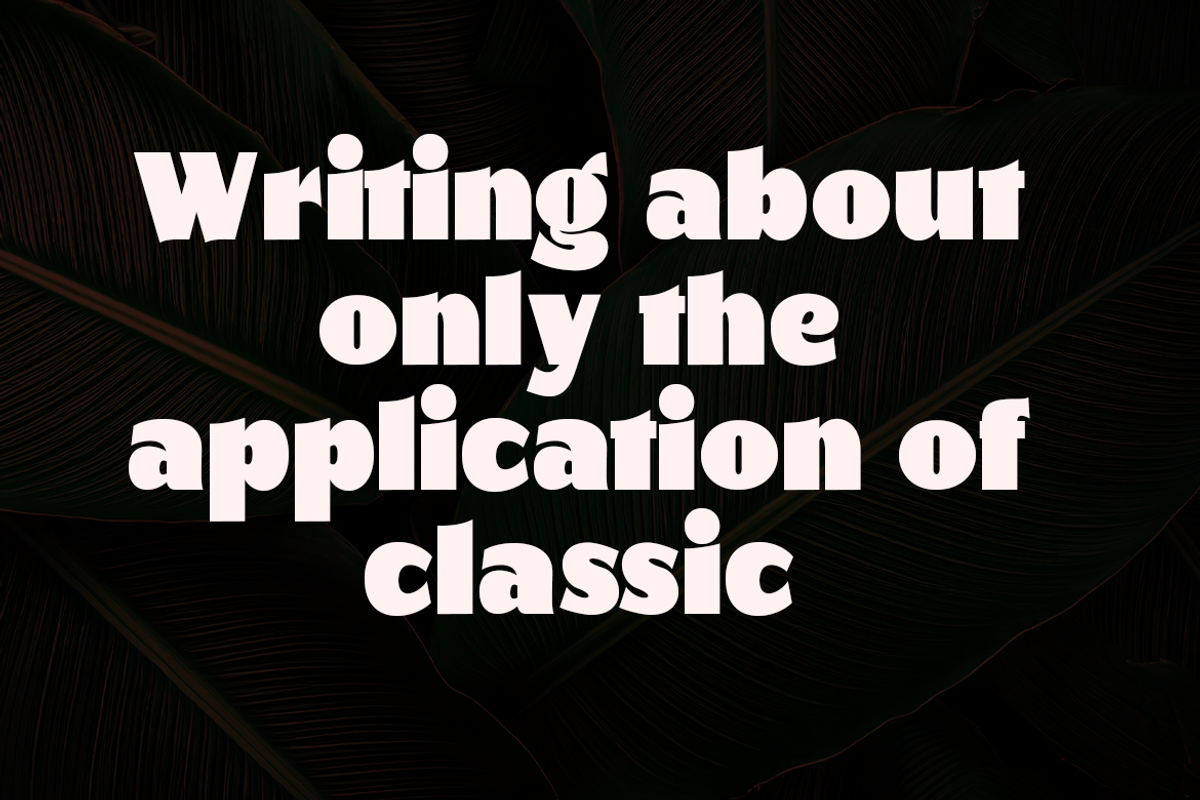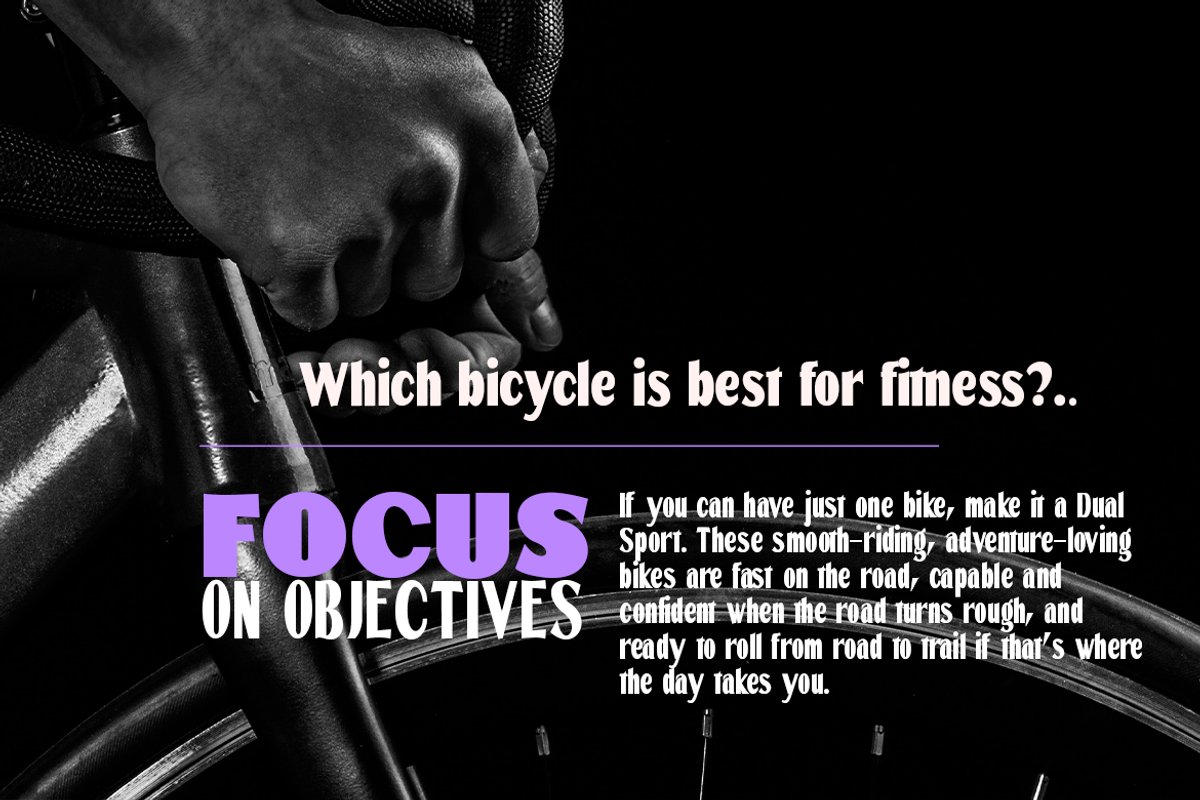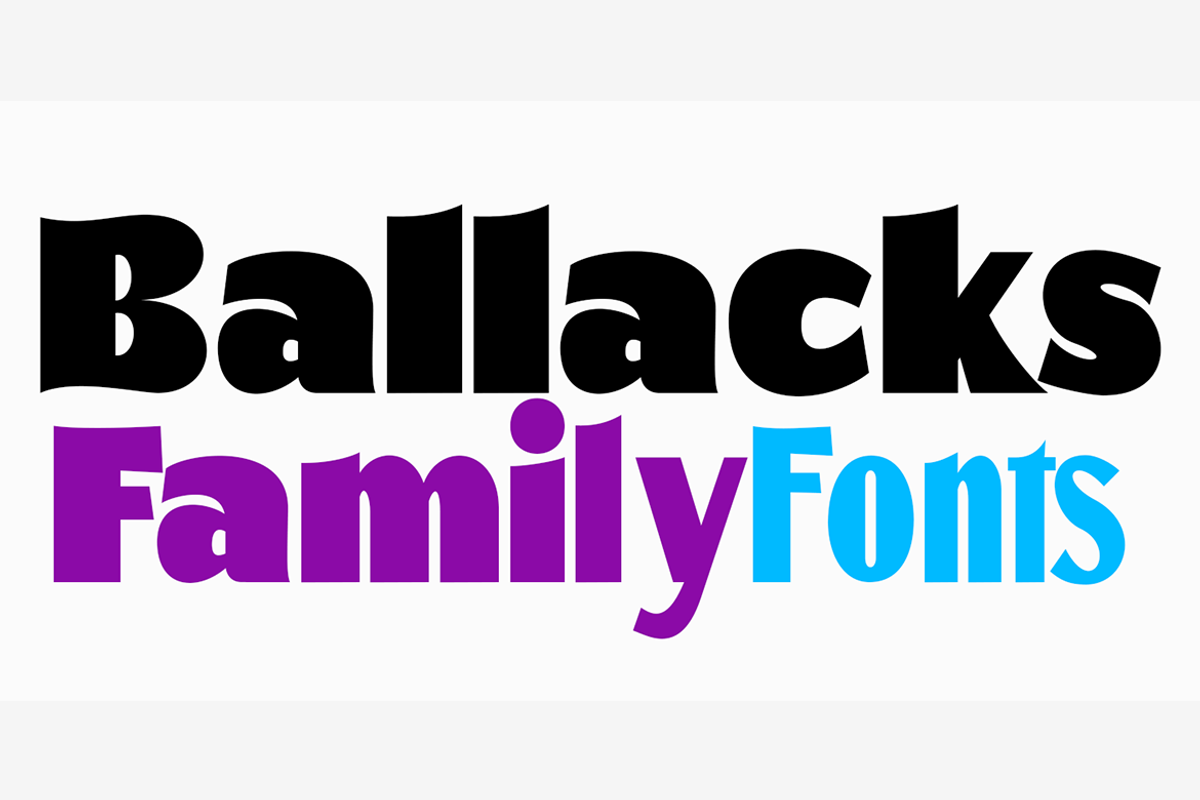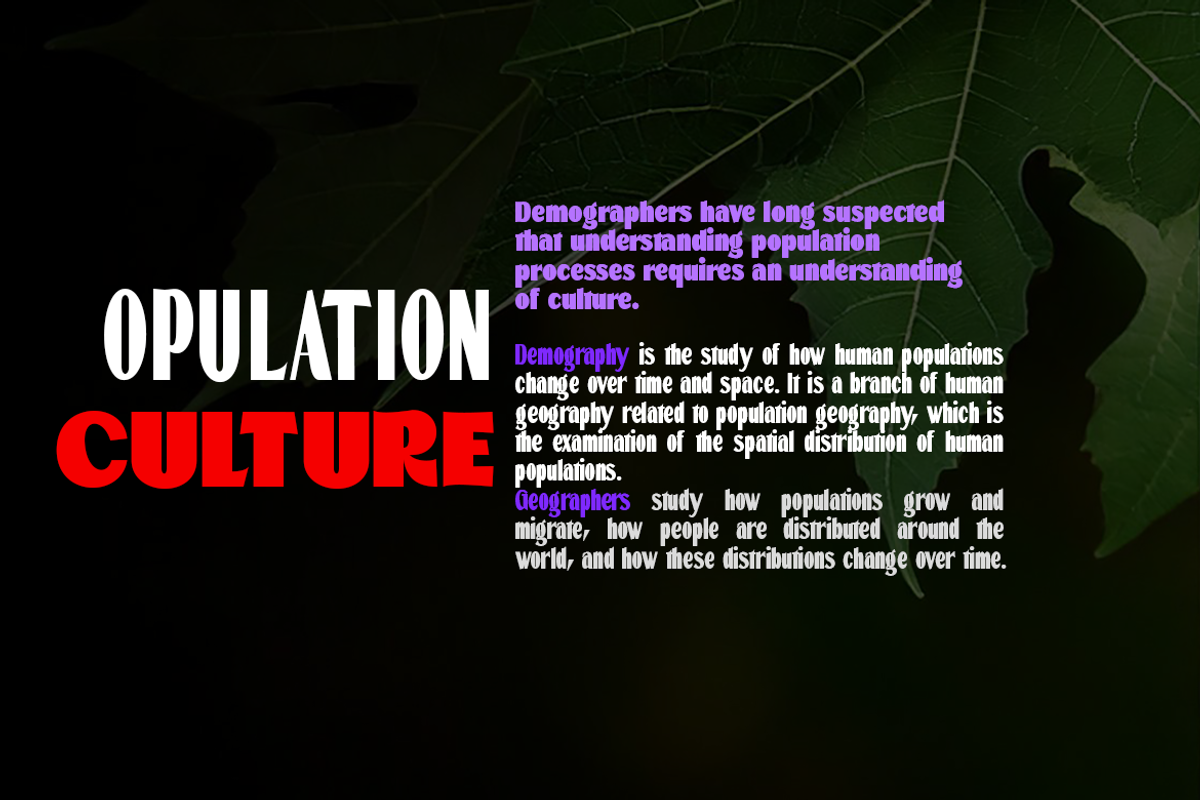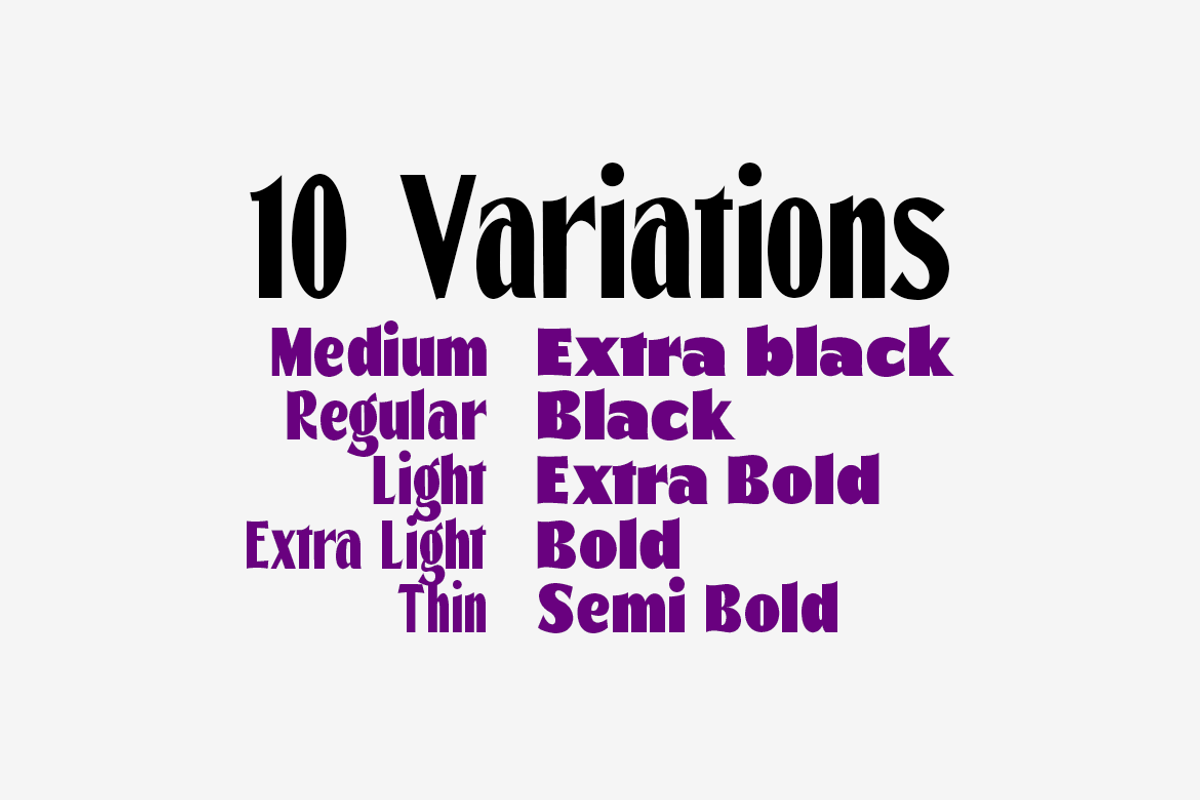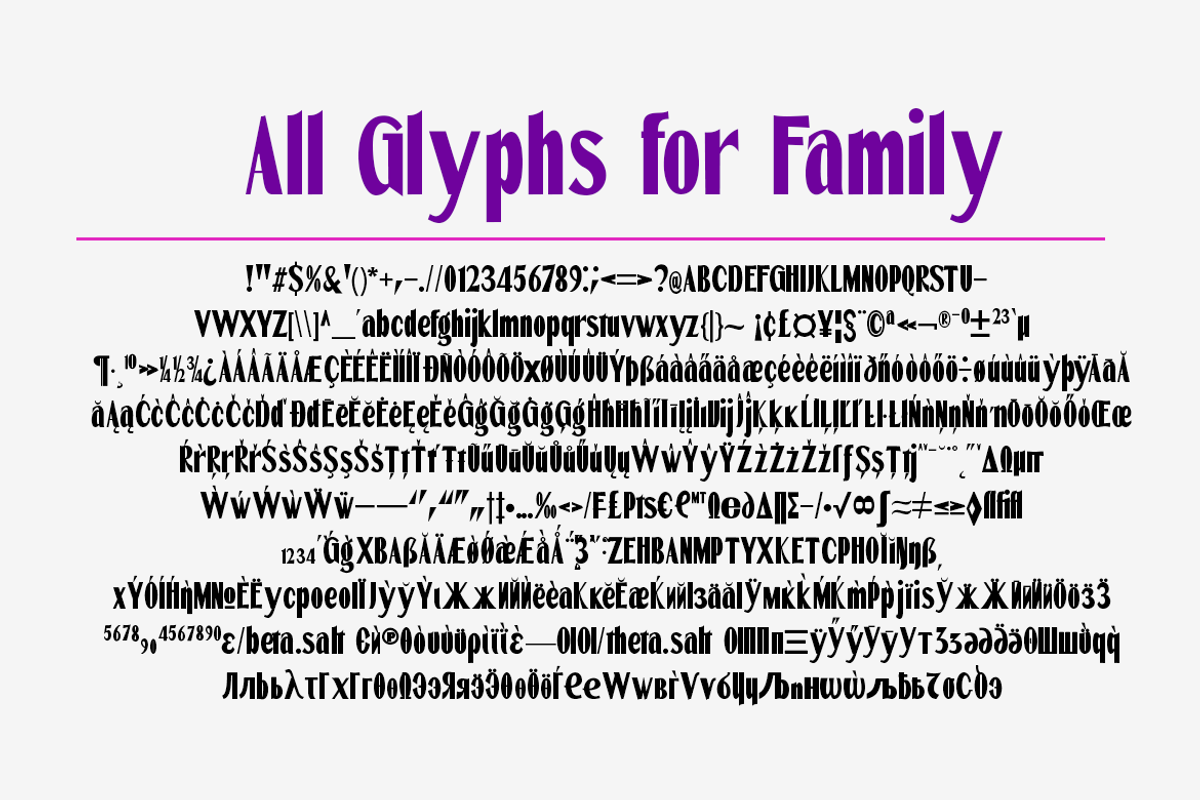
Ballacks
Ballacks is a sans font belonging to 10 font families, made in a very bold style. Ballacks is a variable font with a slim style, coming in 10 straight weights.
Ballacks works well in all brands, logos, magazines, movies. The different weights give you a wide host of applications, while the outlined fonts give a real modern feel to any project.
Multilingual support for multiple languages including: French, German, Spanish, Portuguese, Italian, Dutch, Finnish, Swedish and many more.